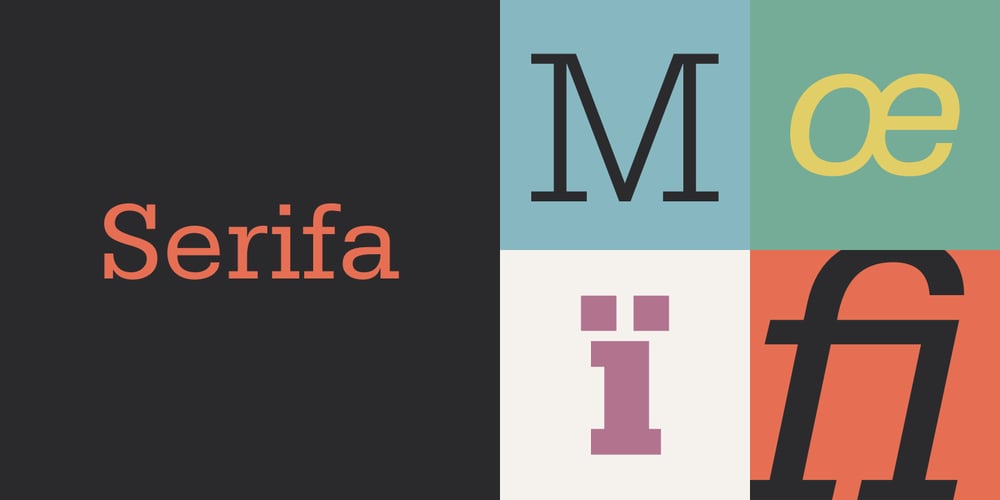
Serifa
Serifa font
Serifa Font Family was designed by Adrian Frutiger and published by Linotype. Serifa contains 6 styles and family package options. This slab serif font of Adrian Frutiger is extremely legible and robust, making it suitable for most any use. Based on the forms of Univers, Serifa makes a harmonious and timeless impression.